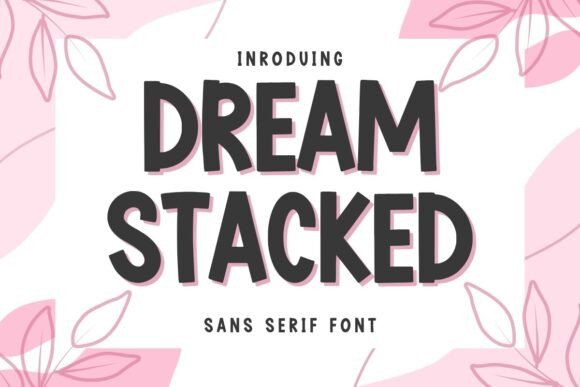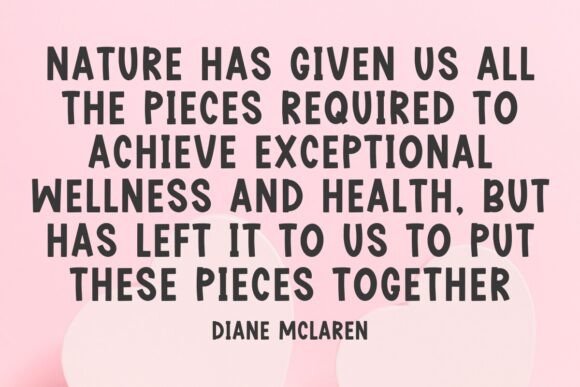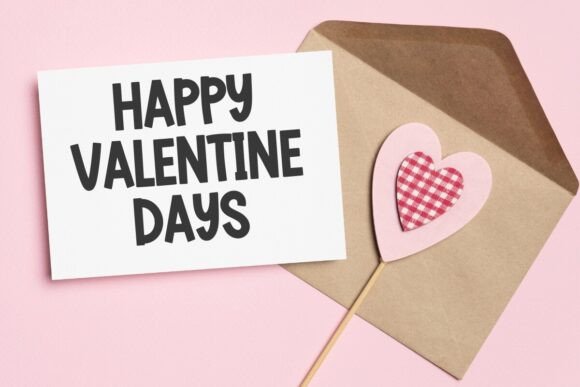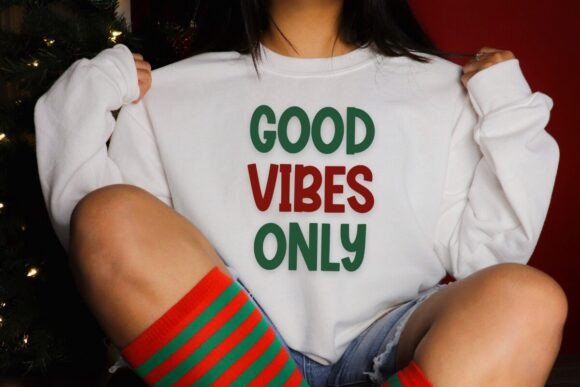
Dream Stacked Font: A Bold Sans Serif for Playful Logo Design
About the Dream Stacked Font
Unleash your creativity with Dream Stacked Font, a versatile font perfect for a wide range of applications. Dream Stacked is a fun and unique sans-serif font. Whatever the topic, this font will be a wonderful asset to your font library, as it has the potential to enhance any creation.
Dream Stacked’s playful, stacked design excels in short, impactful headlines, logos, and branding elements where its unique character shines. It’s also well-suited for posters or packaging requiring a bold, attention-grabbing aesthetic. However, its stacked nature makes it less ideal for body text or extended reading; legibility suffers at smaller sizes. Avoid using it in UI design or situations demanding high readability.
Pairing Dream Stacked effectively requires a contrasting yet complementary typeface. A clean, geometric sans-serif like Montserrat would create a modern, balanced look. Alternatively, a classic serif like Garamond could provide sophisticated contrast, highlighting Dream Stacked’s playful energy. Avoid pairing it with other highly decorative or stacked fonts which would create visual clutter.
The overall personality is bold, quirky, and friendly, best suited to projects needing a fun, memorable, and slightly unconventional feel. Brands targeting a younger demographic or those promoting playful, creative products or services would find Dream Stacked a highly effective choice.
Dream Stacked Font Usage Examples
Dream Stacked Font Example